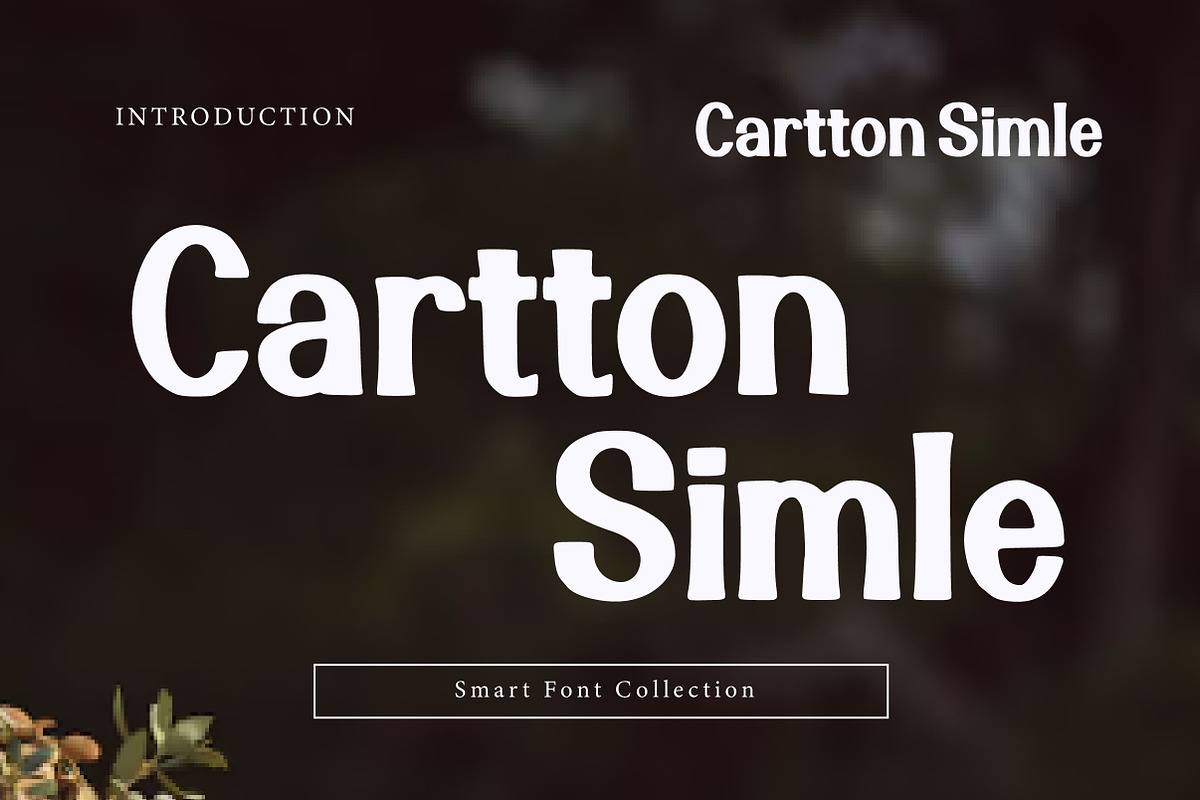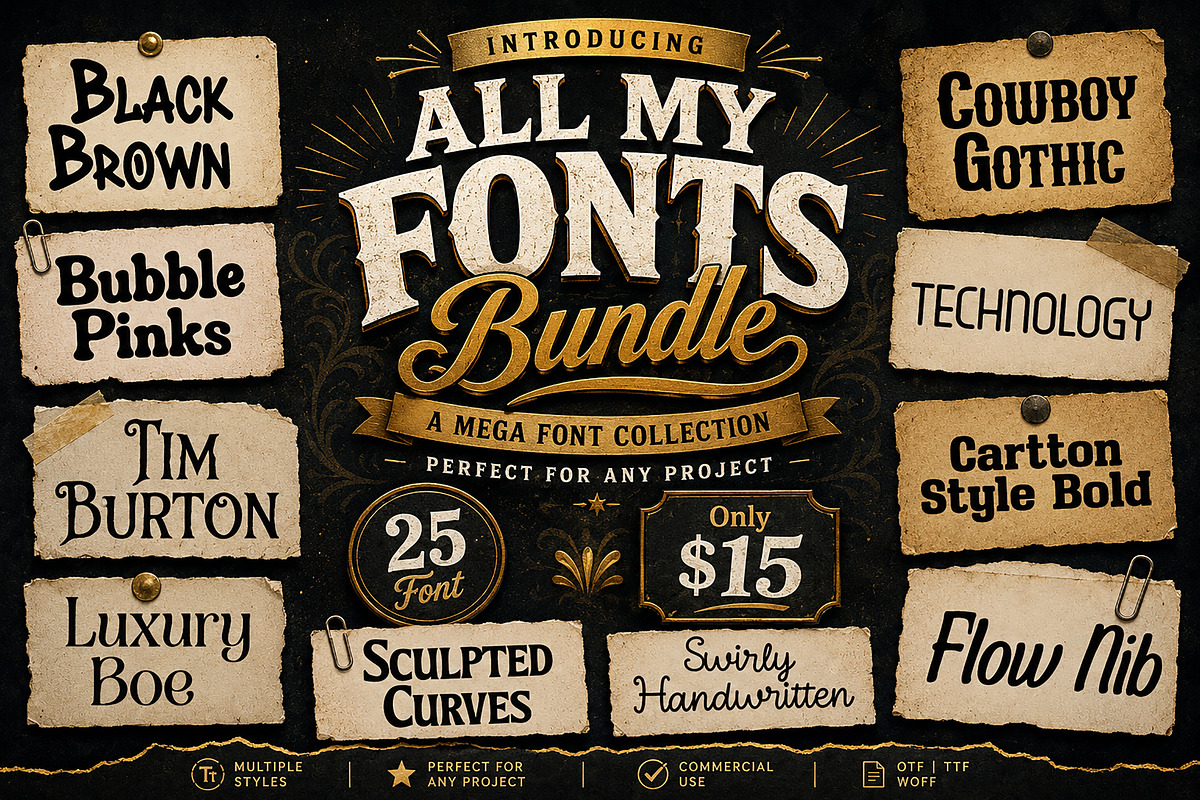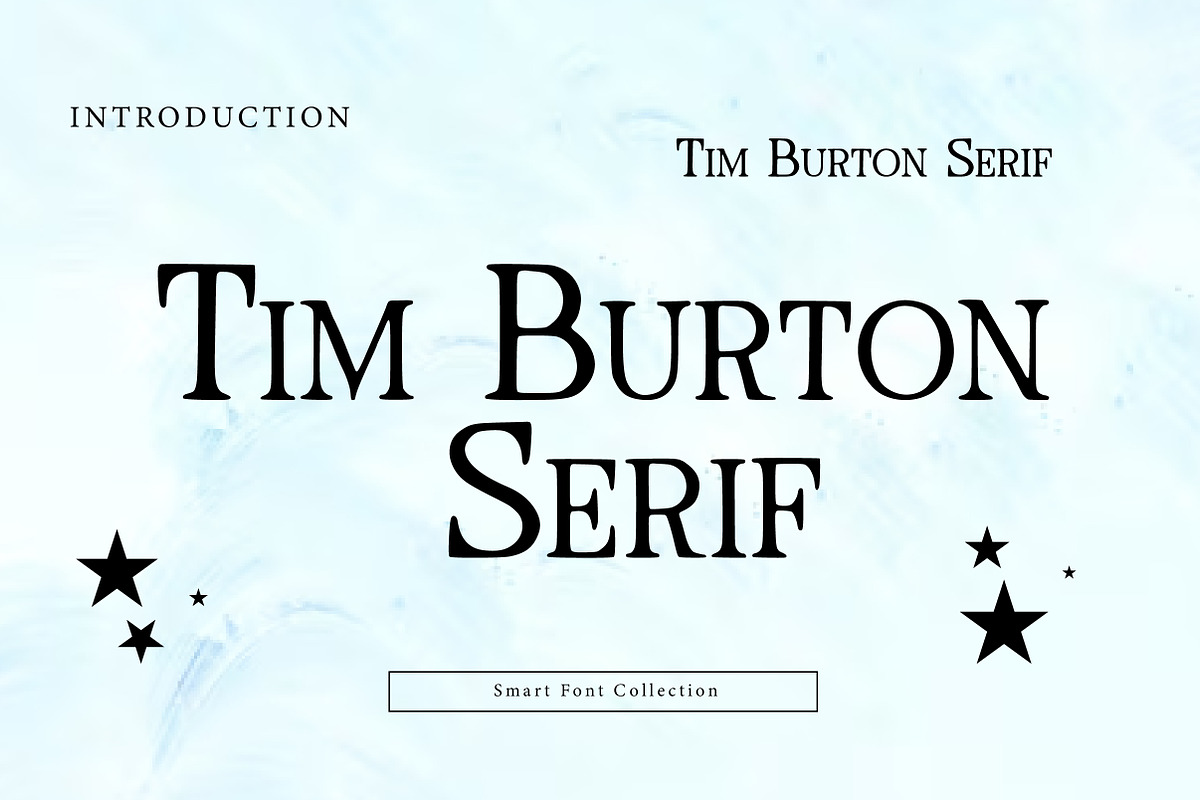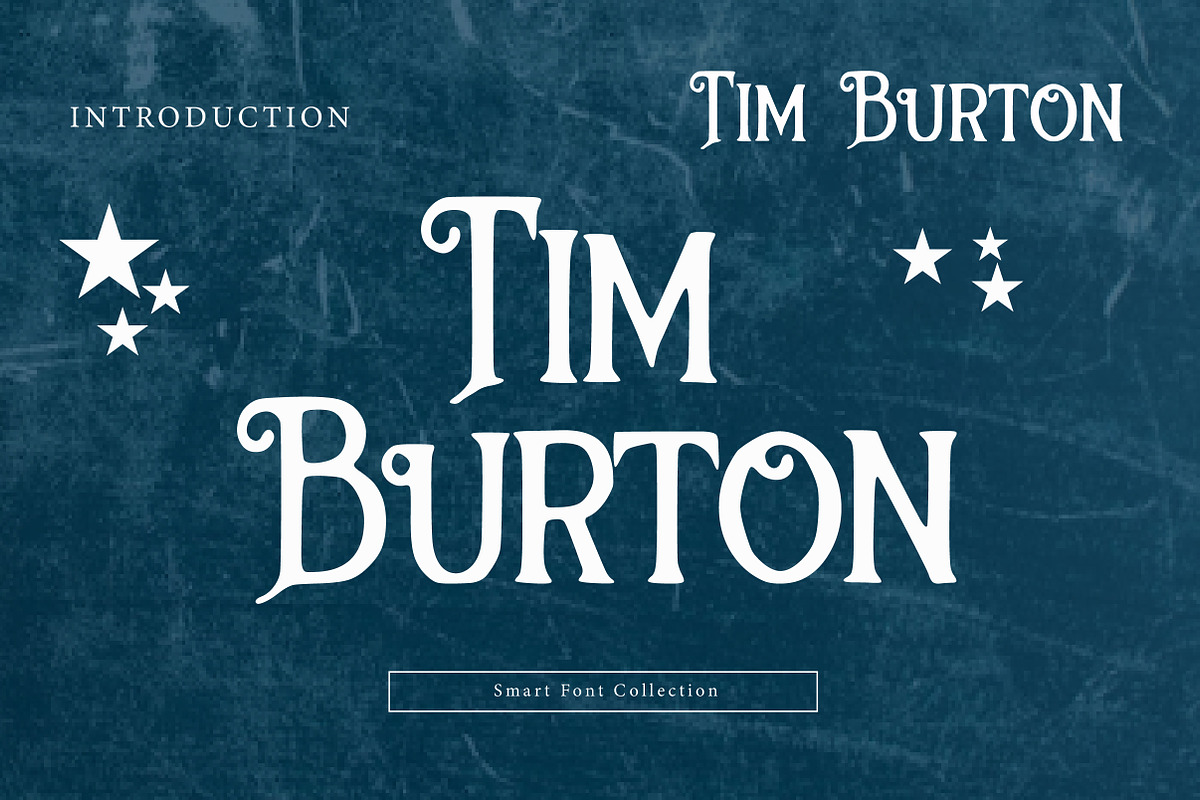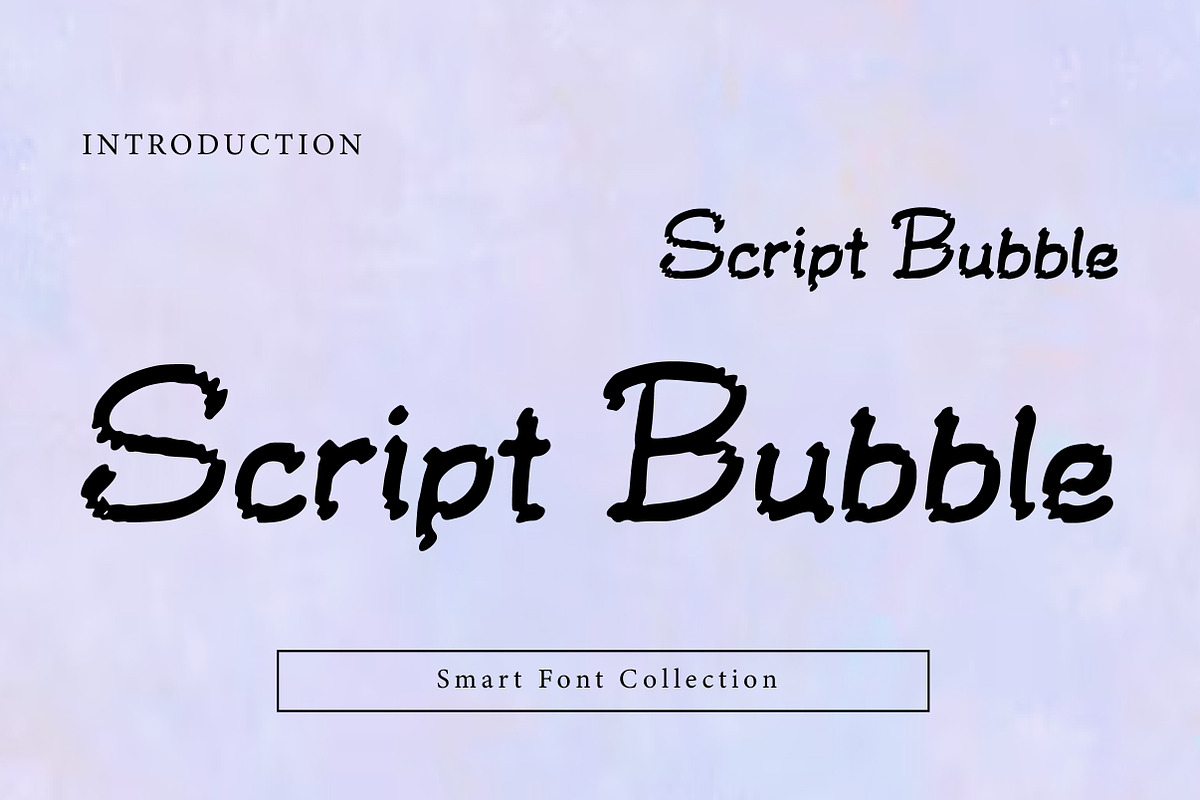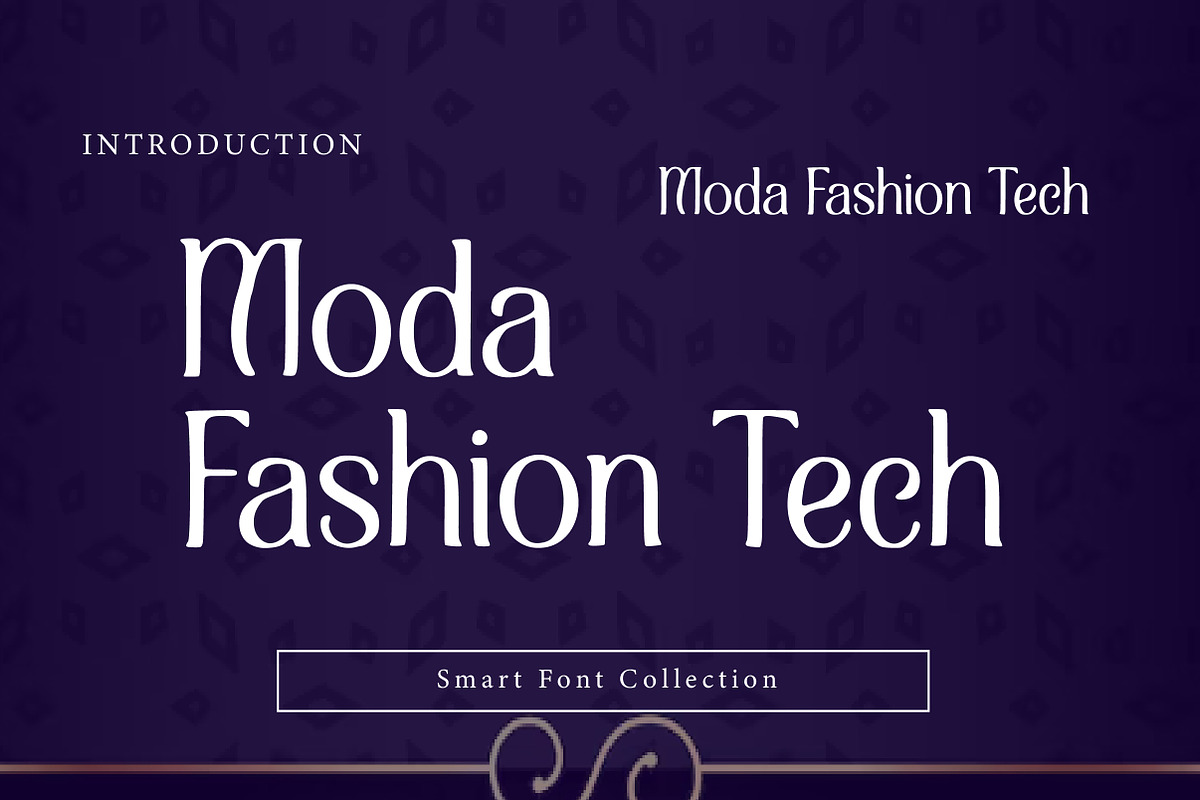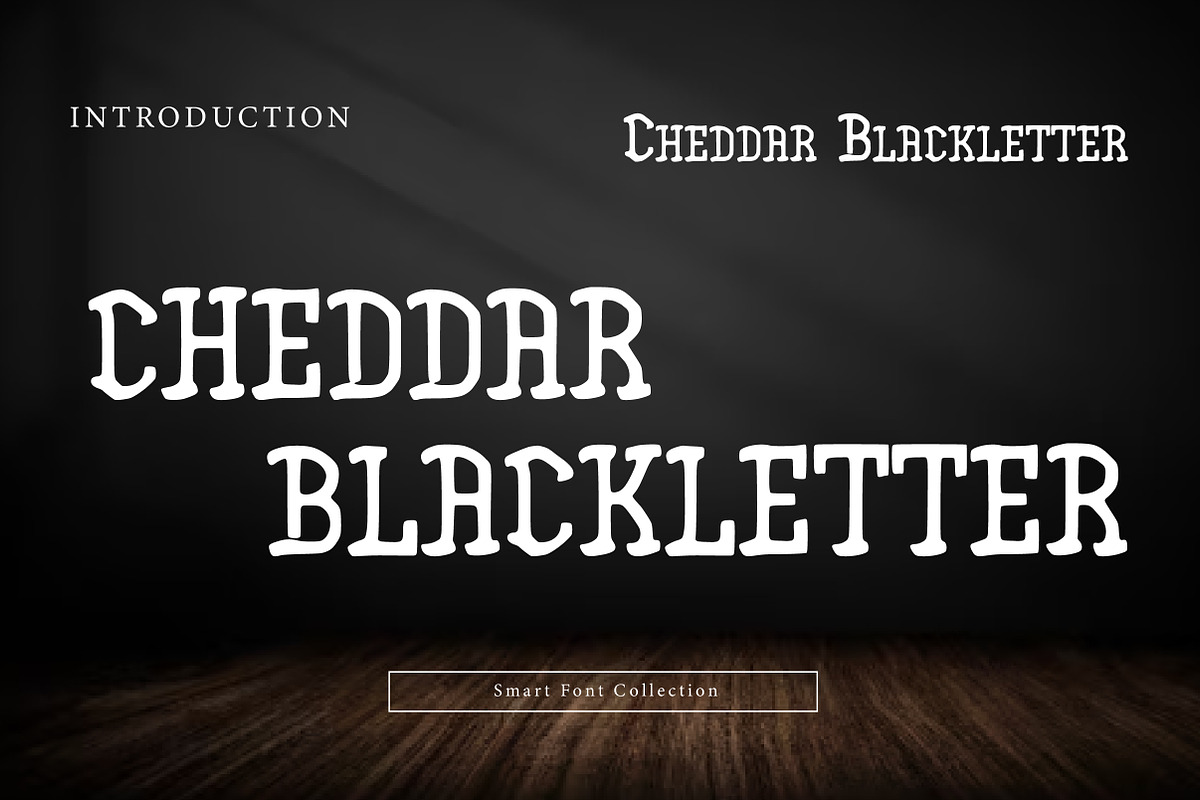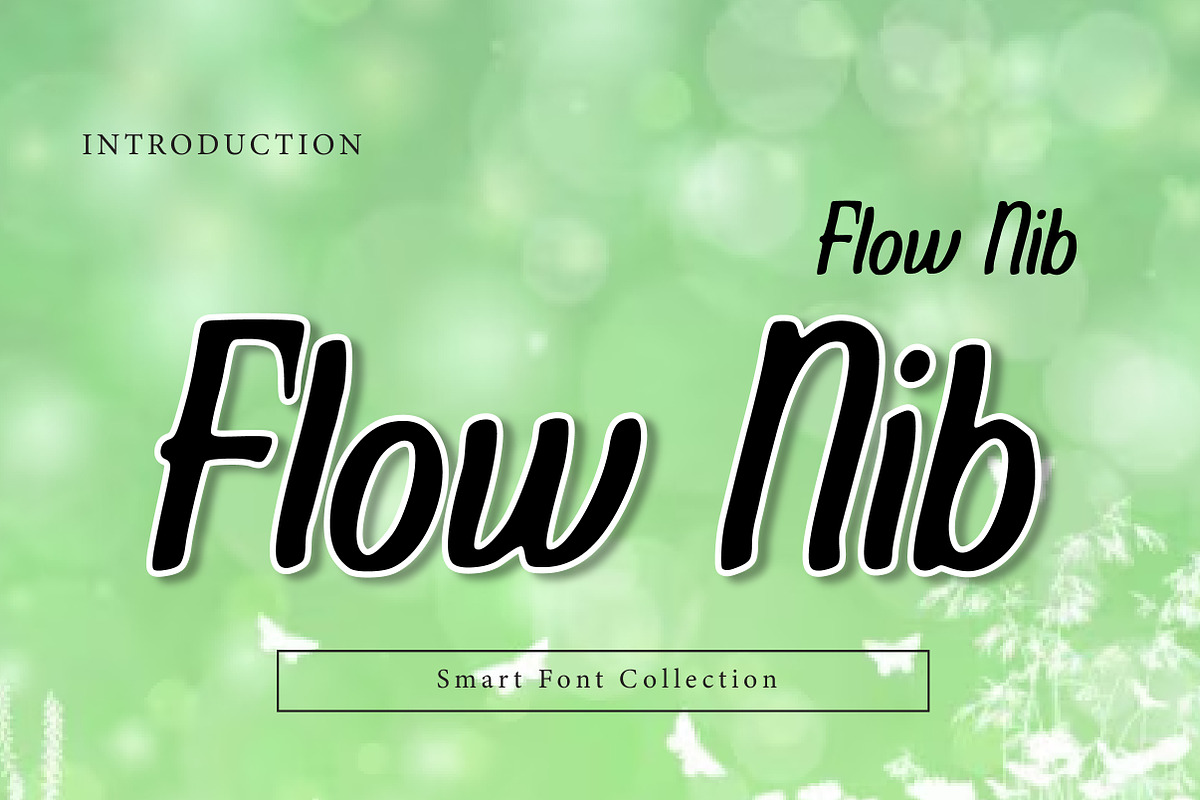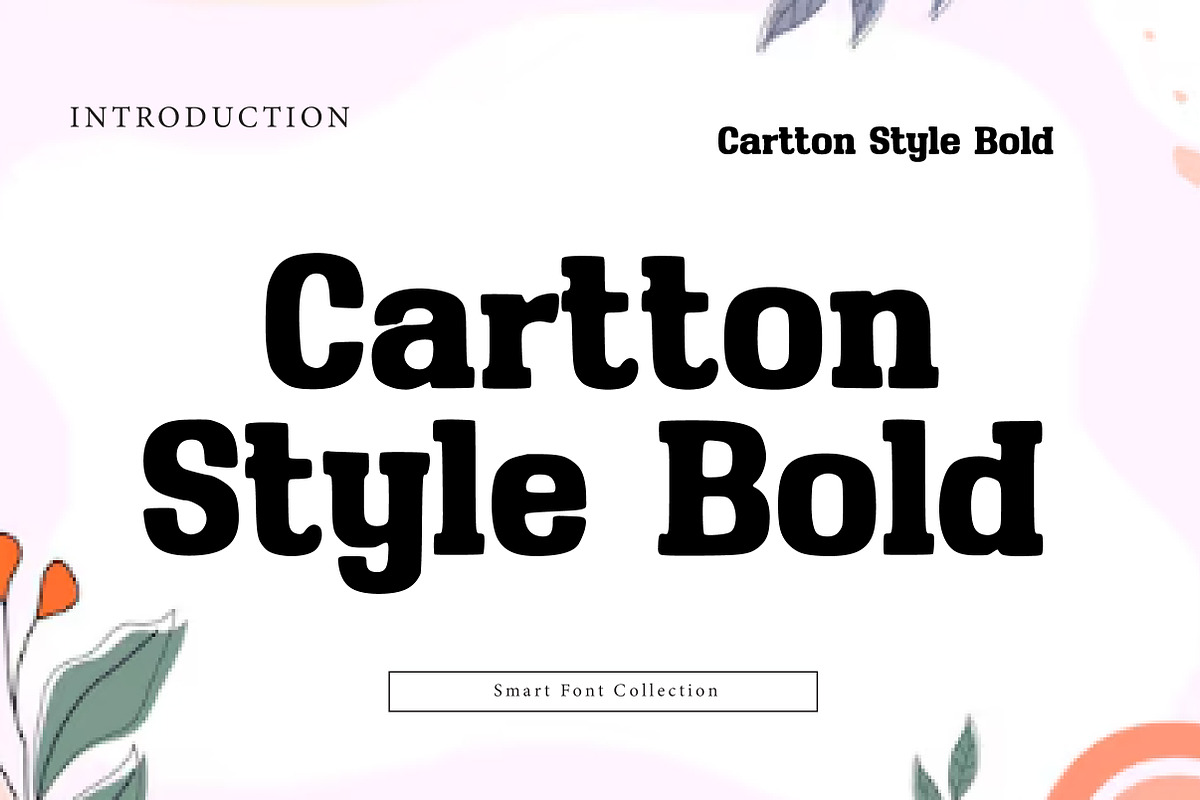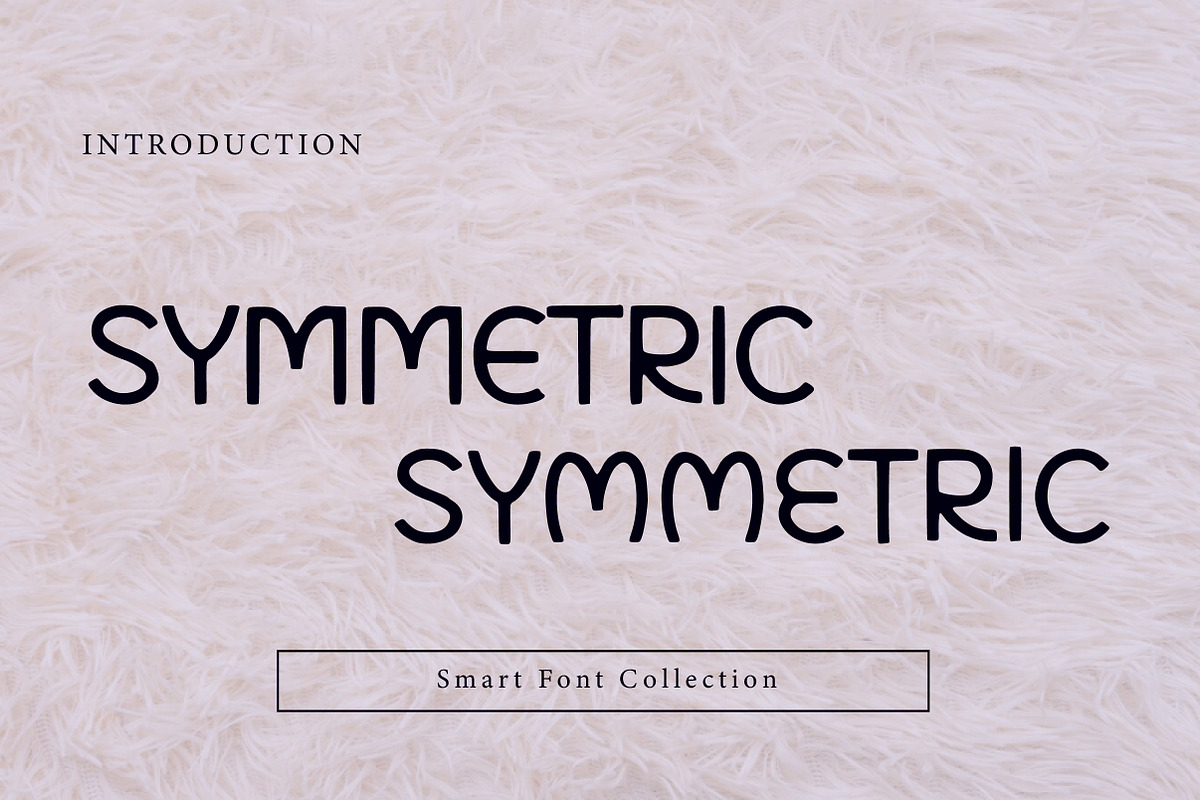
All My Fonts Font
Introducing All My Fonts Bundle — a creative mega collection of stylish display fonts designed to make your projects stand out beautifully. This bundle includes a versatile mix of handwritten, western, gothic, luxury, bubble, cartoon, and modern typography styles perfect for both professional and fun designs.
Whether you’re creating logos, branding, social media graphics, posters, packaging, apparel, invitations, or print-on-demand products, this font collection gives you everything you need in one affordable bundle.